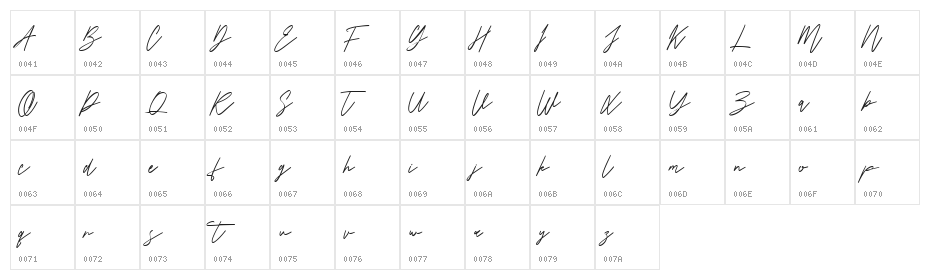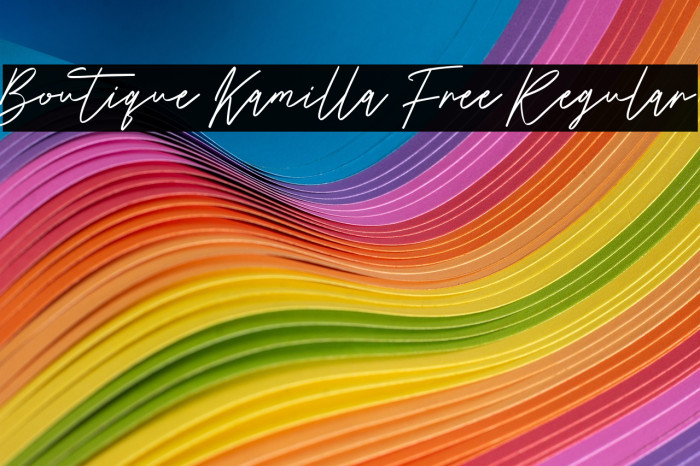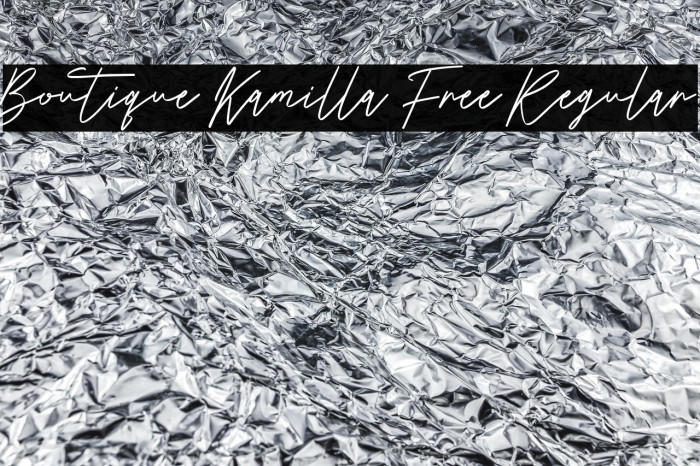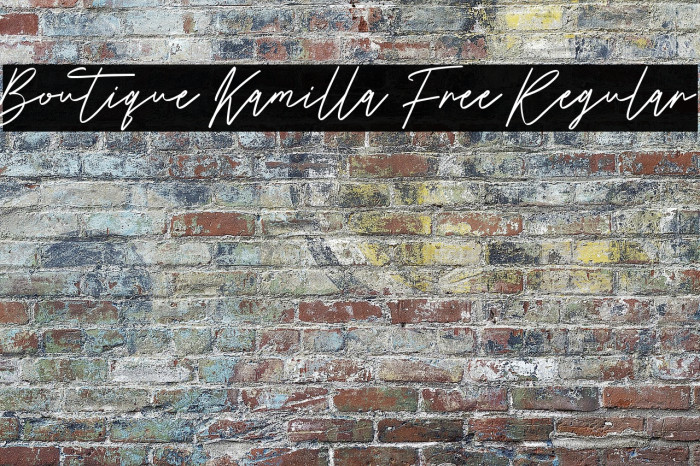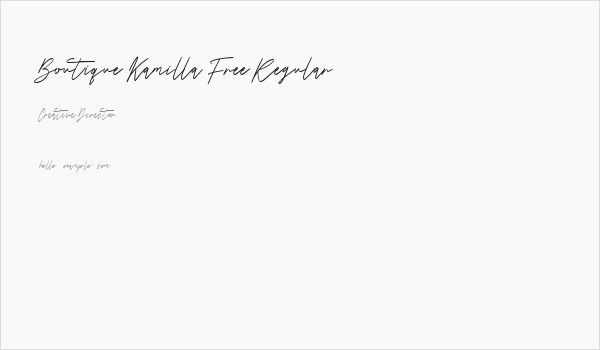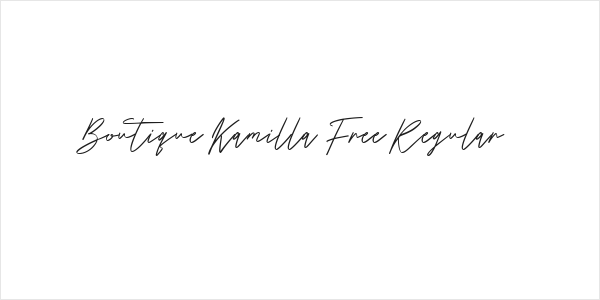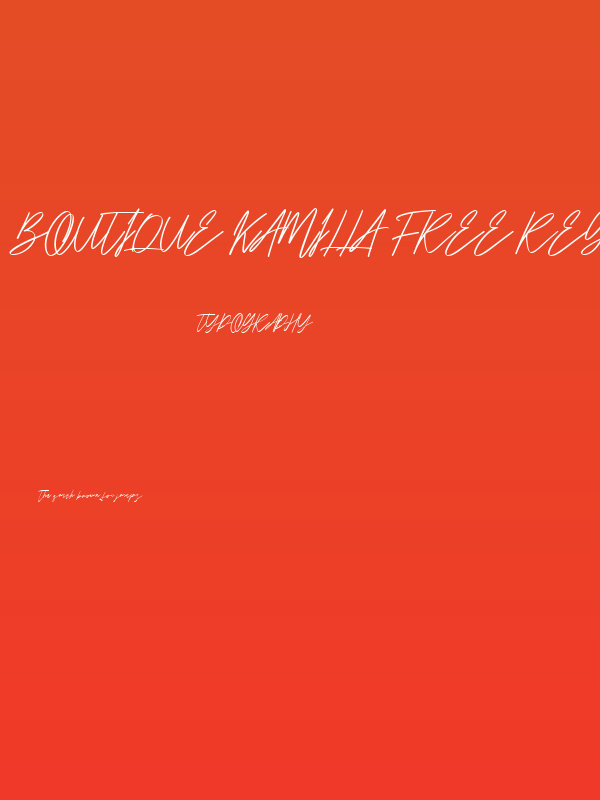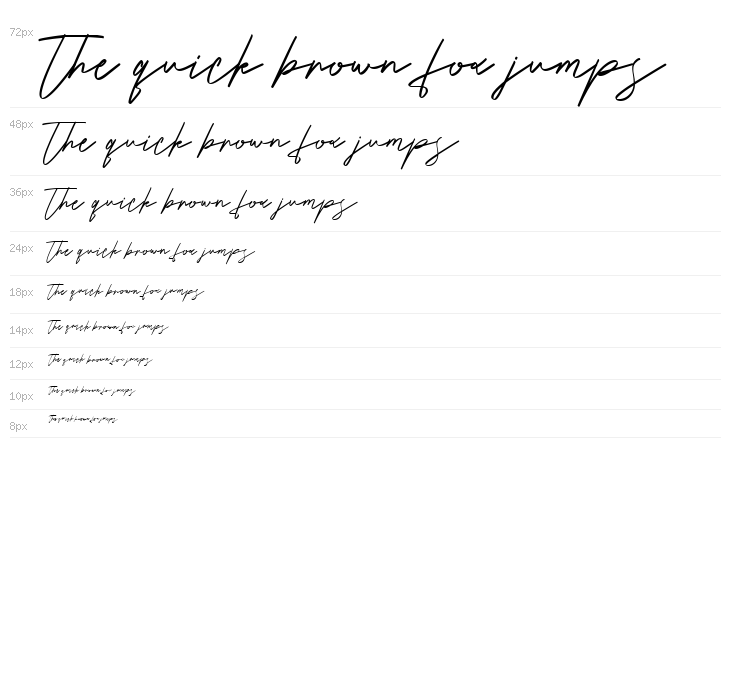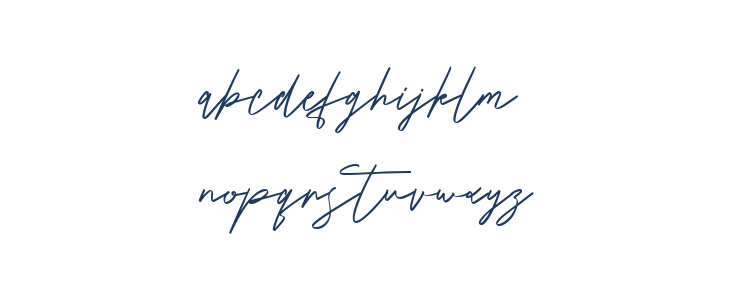
Boutique Kamilla Free Regular Font
Boutique Kamilla Free Regular Description
This font features an elegant, flowing script style that mimics natural handwriting. The characters are connected with smooth, fluid strokes, giving it a personal and artistic touch. The uppercase letters are bold and expressive, while the lowercase letters maintain a consistent rhythm and flow. The overall appearance is sophisticated and stylish, making it ideal for projects that require a personal or creative flair. The font's design is both modern and timeless, suitable for a variety of applications.
| Use Case | Logos, Invitations, Social Media |
| Proposed Projects | Ideal for wedding invitations, greeting cards, branding, and social media graphics. |